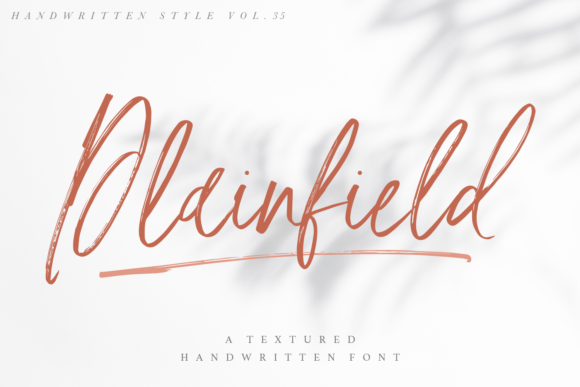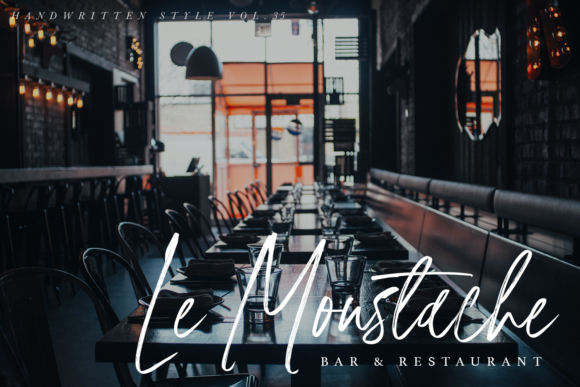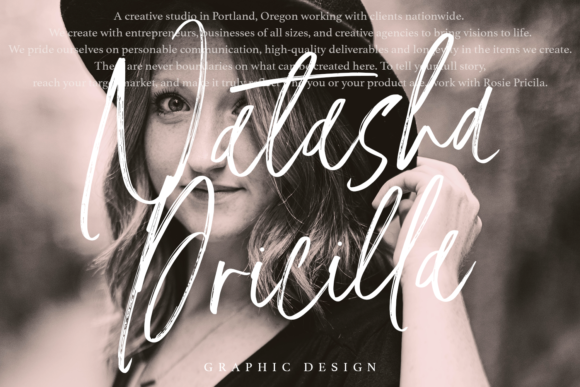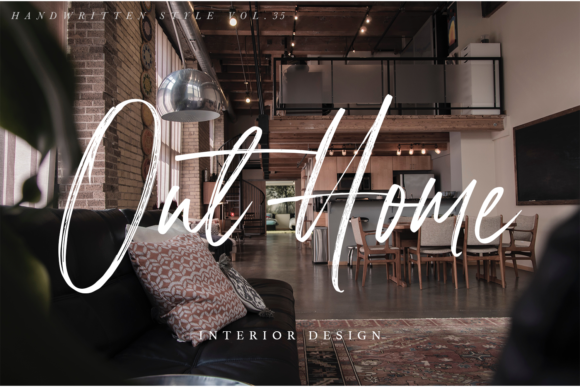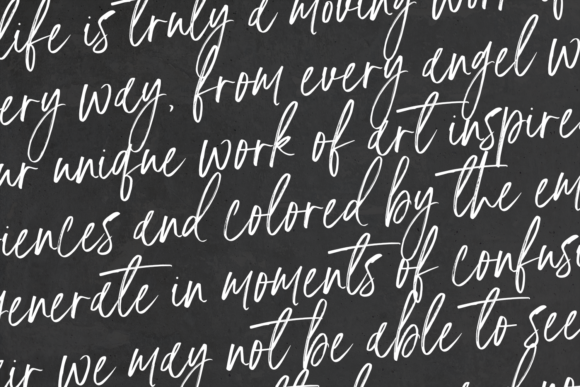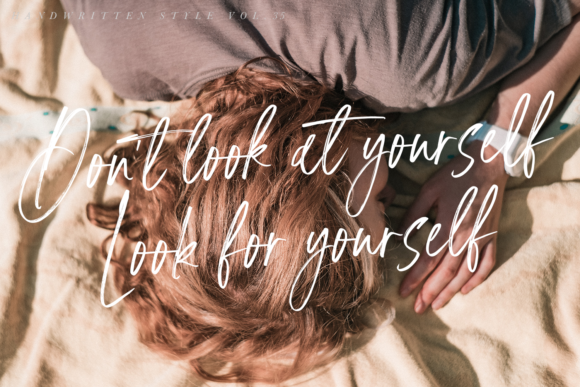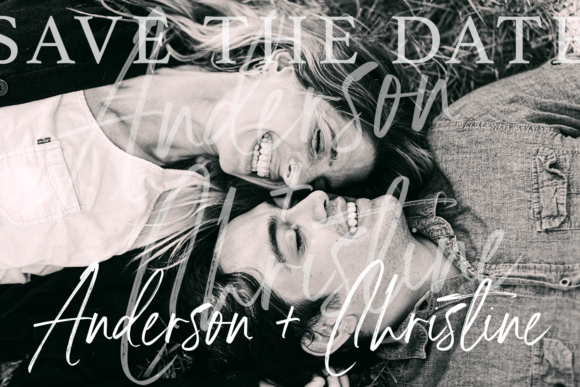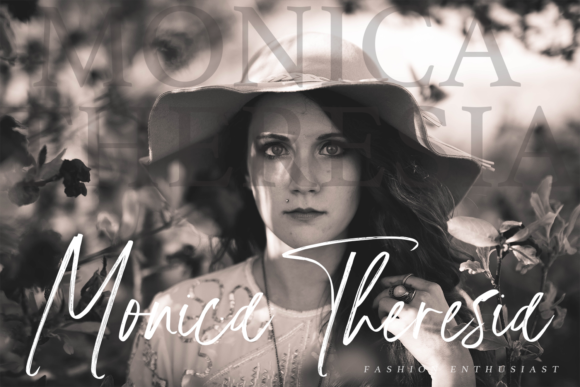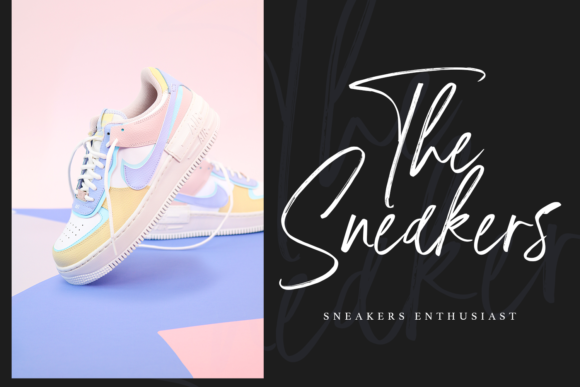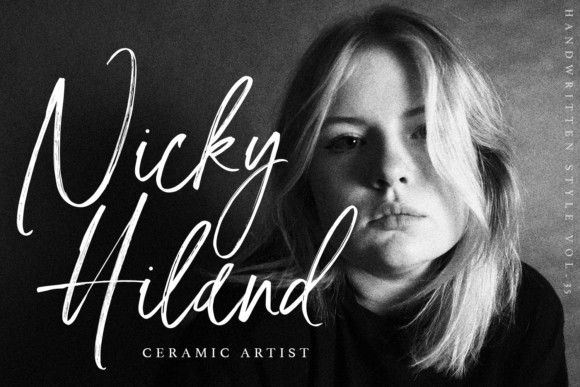
Plainfield Font
About Plainfield Font
Plainfield is a relaxed and timeless, brushed handwritten font. It looks lovely on wedding invitations, thank you cards, quotes, greeting cards, logos, business cards and every other design which needs a personalized touch.